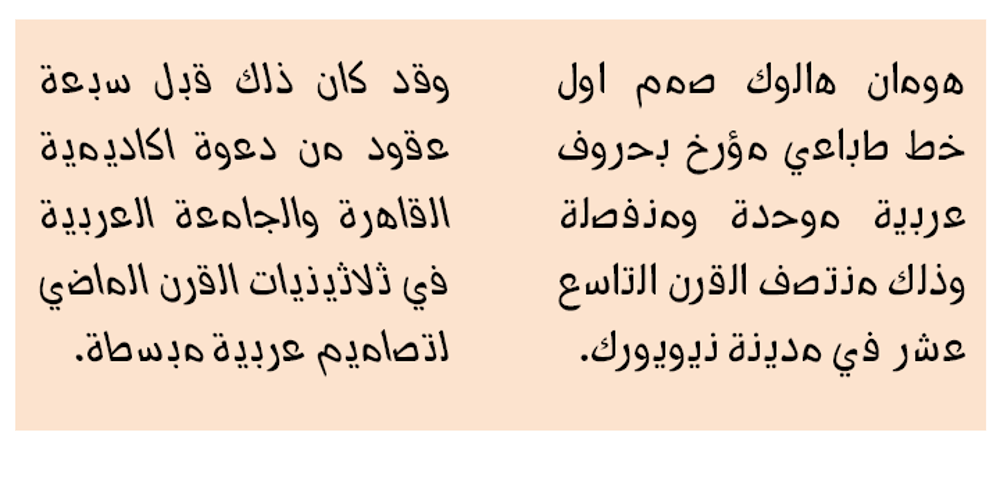
Hallock
Hallock font
Hallock Font Family was designed by Saad D. Abulhab and published by Arabetics. Hallock contains 2 styles and family package options. A text typeface design with completely isolated letters and extra emphasis on vertical feel and visual connectivity to aid easy reading. The Hallock font family is named after Homan Hallock, a New York based American type designer and typographer who created the first documented unified and isolated Arabic font design in July 1864. The Hallock font family has two styles, regular and left-slanted italic styles. This font family design follows the guidelines of Mutamathil Taqlidi type style with one glyph for every basic Arabic Unicode character or letter, as defined in the latest Unicode Standards, and one additional final form glyph, for the freely-connecting letters in traditional Arabic cursive text. Hallock employs variable x-height values. It includes only the Lam-Alif ligatures. Soft-vowel diacritic marks, harakat, are selectively positioned. Most of them appear by default on the same level, following a letter, to ensure that they would not interfere visually with letters. Tatweel is a zero-width glyph. Keying the tatweel key before Alif-Lam-Lam-Ha will display the Allah ligature. Hallock includes both Arabic and Arabic-Indic numerals, in addition to standard punctuations.